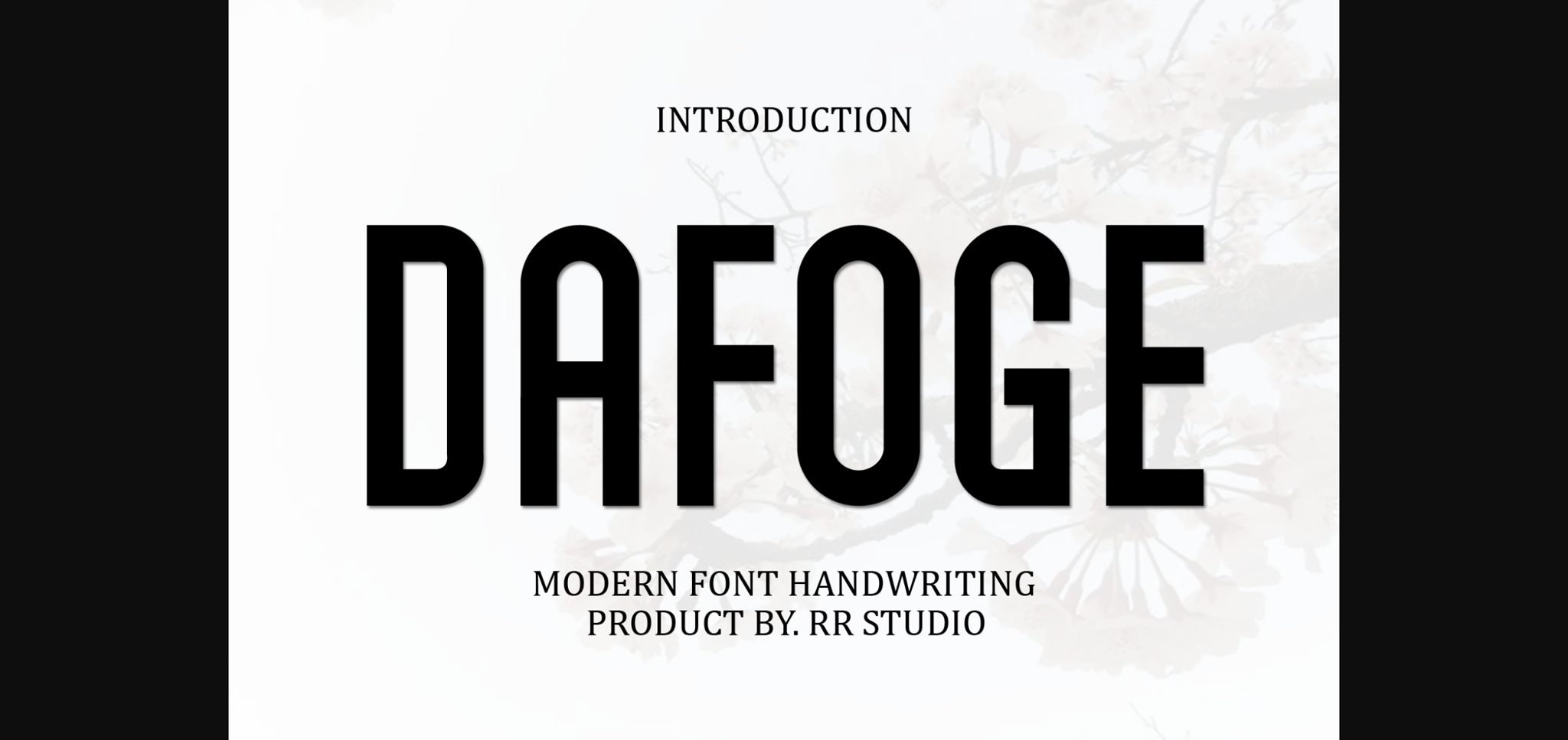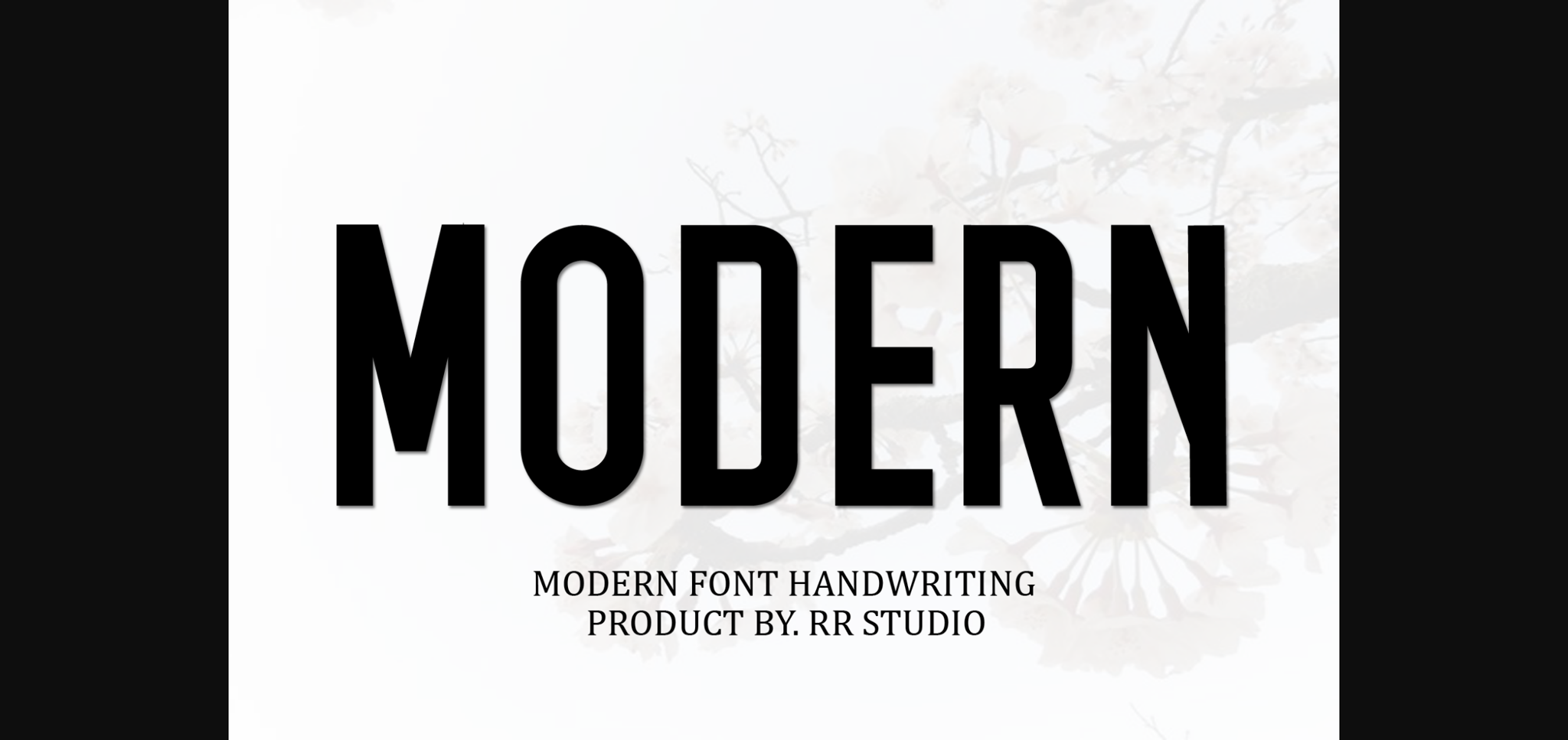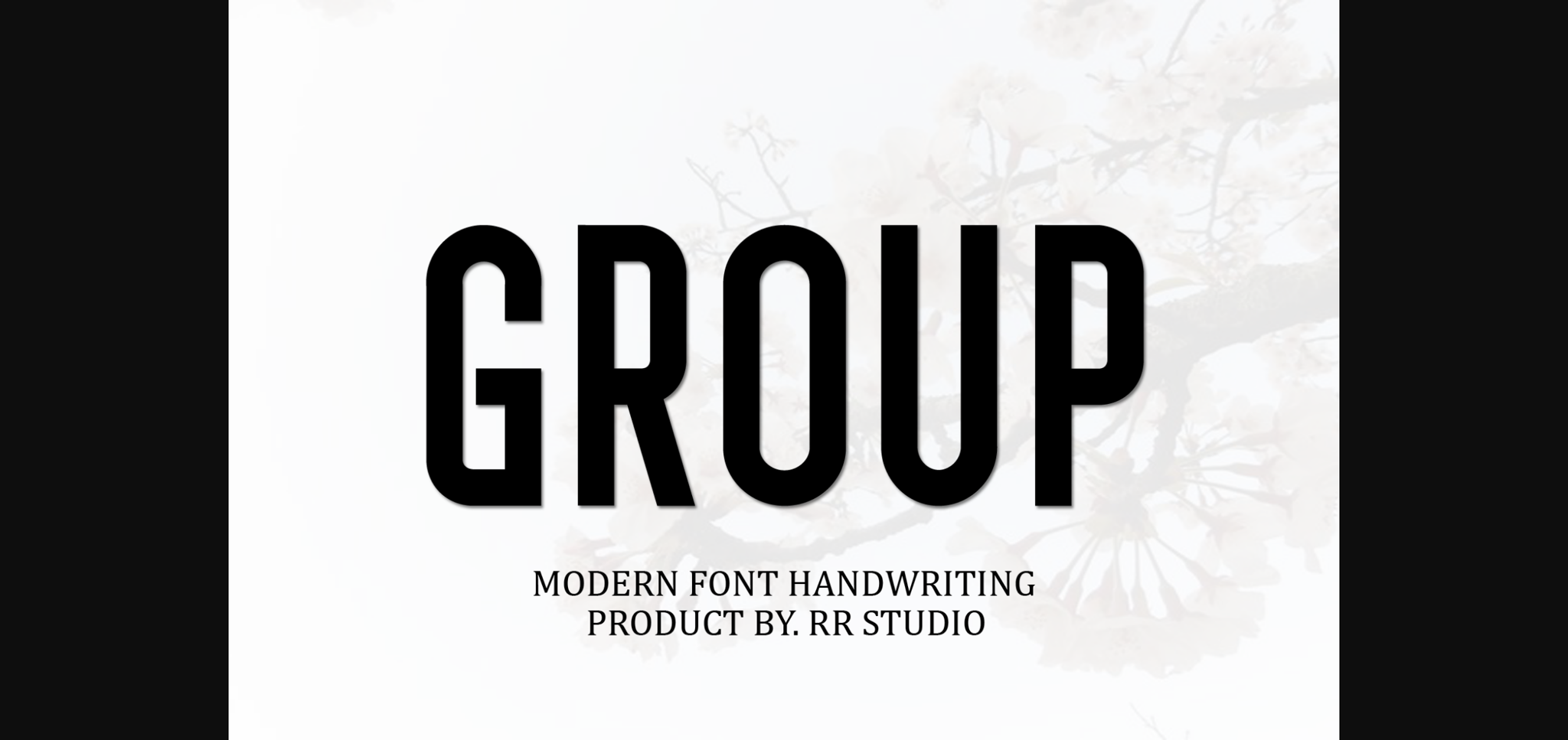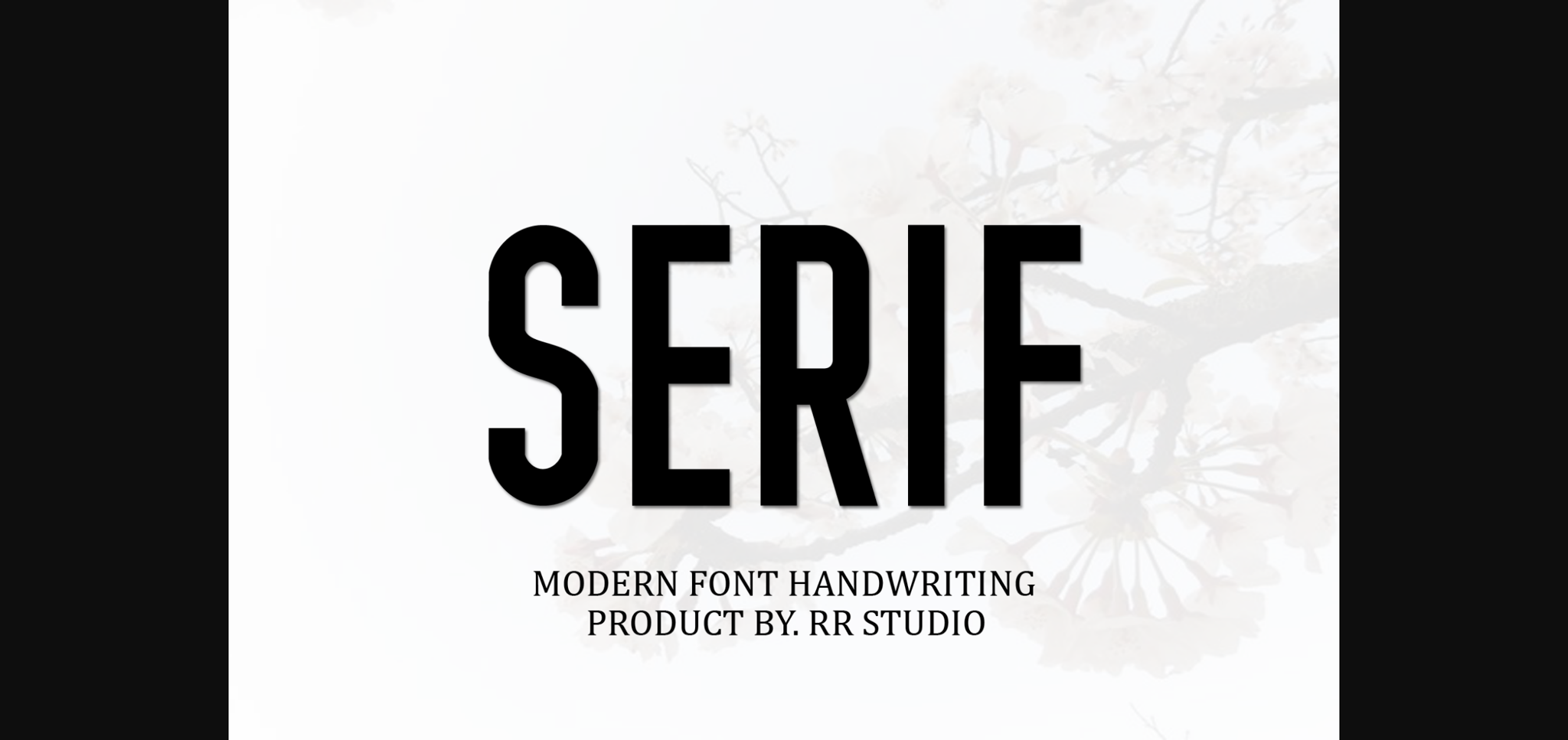
About Dafoge Font
Dafoge is a stylish and incredibly elegant sans serif font. It looks stunning on wedding invitations, thank you cards, quotes, greeting cards, logos, business cards and every other design which needs a handwritten touch.